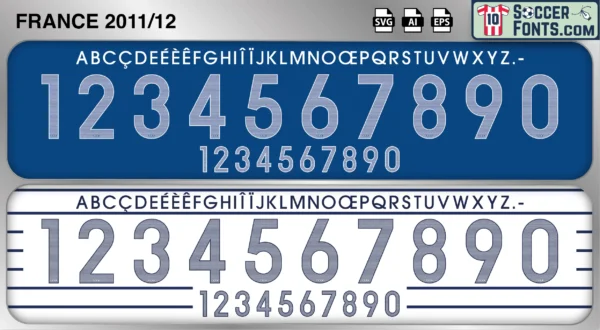
France 2011-12 Font
The France 2011-12 font is an editable soccer jersey lettering design in vector format inspired by the France kit style used during the 2011-12 football seasons. This football font artwork is prepared for football shirt recreations, custom jersey projects, football kit mockups and sports graphic design workflows.
The 2011-12 period marked a significant moment in the visual and sporting history of the French national team. It was the era in which France transitioned from Adidas to Nike, introducing a new kit identity while continuing its rebuilding process following the 2010 FIFA World Cup. On the pitch, France focused on qualification for UEFA EURO 2012 under Laurent Blanc, gradually restoring confidence and competitiveness within the squad. Players such as Hugo Lloris, Karim Benzema, Franck Ribéry, Samir Nasri, Mathieu Debuchy and Yann M’Vila formed the core of a generation seeking to return France to the top level of European football.
The France 2011-12 font became associated with the beginning of a new chapter for Les Bleus both on and off the pitch. France shirts from this era remain particularly recognizable because of the historic supplier change and the emergence of players who would later help define the national team throughout the 2010s. The France 2011-12 font reflects a period of renewal, modernisation and ambition, capturing a transitional era that helped establish the foundations for France’s return as a major force in international football.